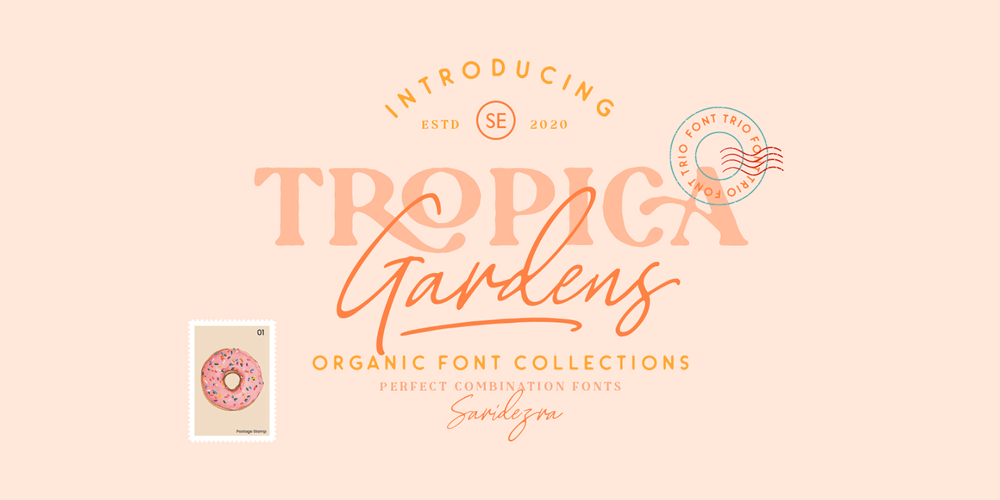
Tropica Gardens Font Family was designed by Sarid Ezra and published by Sarid Ezra. Tropica Gardens contains 3 styles and family package options. Introducing, Tropica Gardens – Essential Font Trio with Bonus Editable LogoTropica Gardens is perfect and essential combination between three fonts including bold serif, rounded sans, and authentic signature. This font trio also support multilingual, number and symbol. You can use this font for any purpose. The best part is, you don’t need to search for the pairing. Thank you! – Don’t hesitate to ask me at saridezra@gmail.com